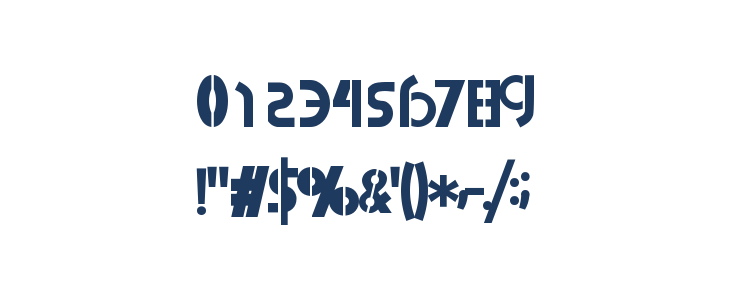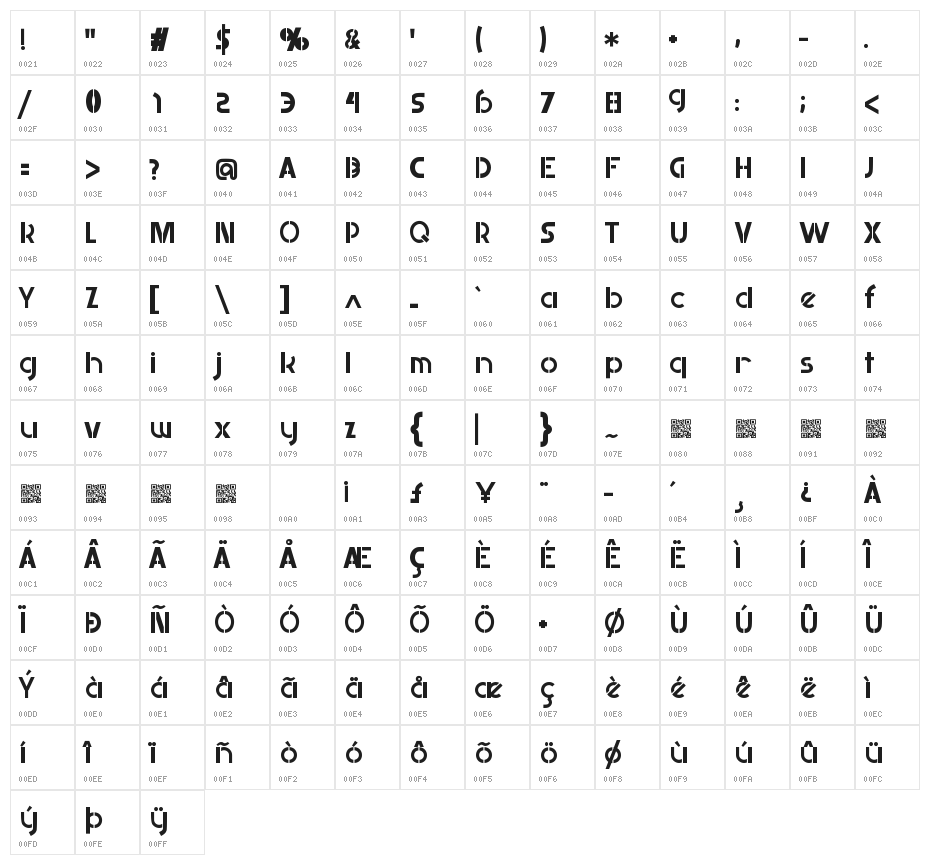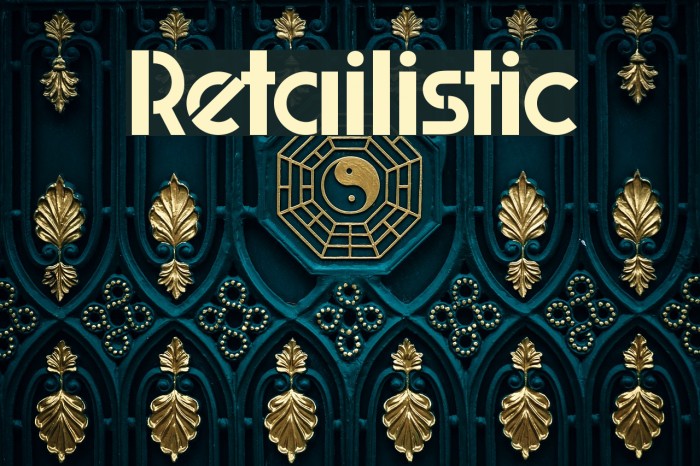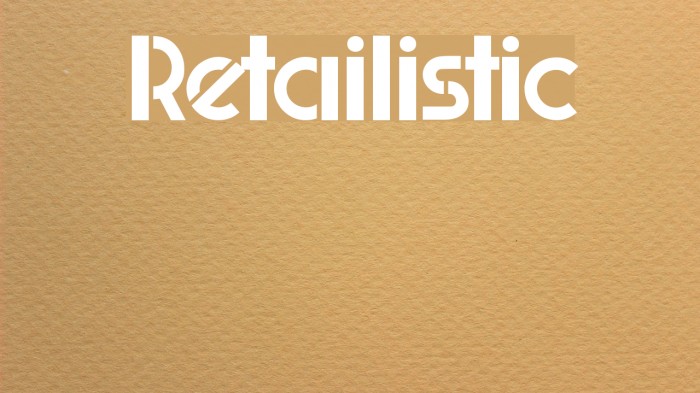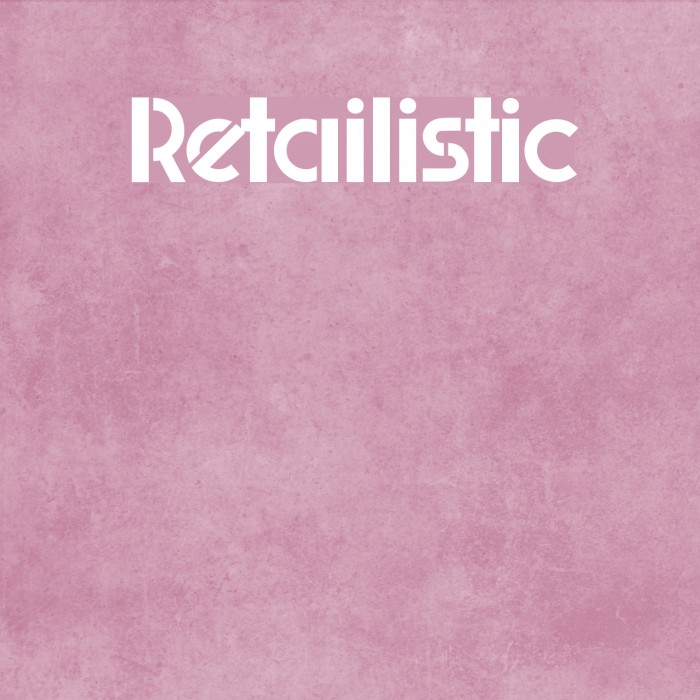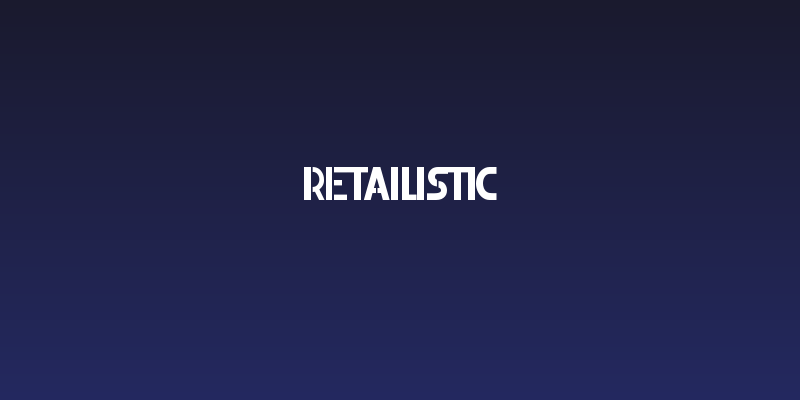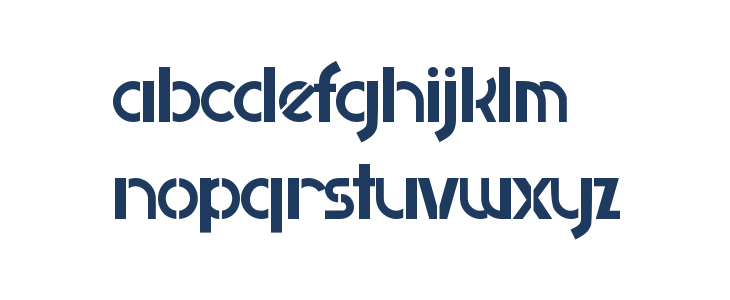
Retailistic Font
Retailistic Description
This font features a bold, geometric design with a modern and futuristic aesthetic. The characters are constructed with sharp angles and clean lines, creating a sense of precision and clarity. The uppercase letters are particularly striking, with unique cutouts and shapes that add a dynamic quality to the text. The lowercase letters maintain the same geometric style, offering consistency across the typeface. Numbers and special characters are equally bold and distinctive, ensuring versatility in various design applications. The overall appearance is both eye-catching and legible, making it suitable for impactful visual statements.